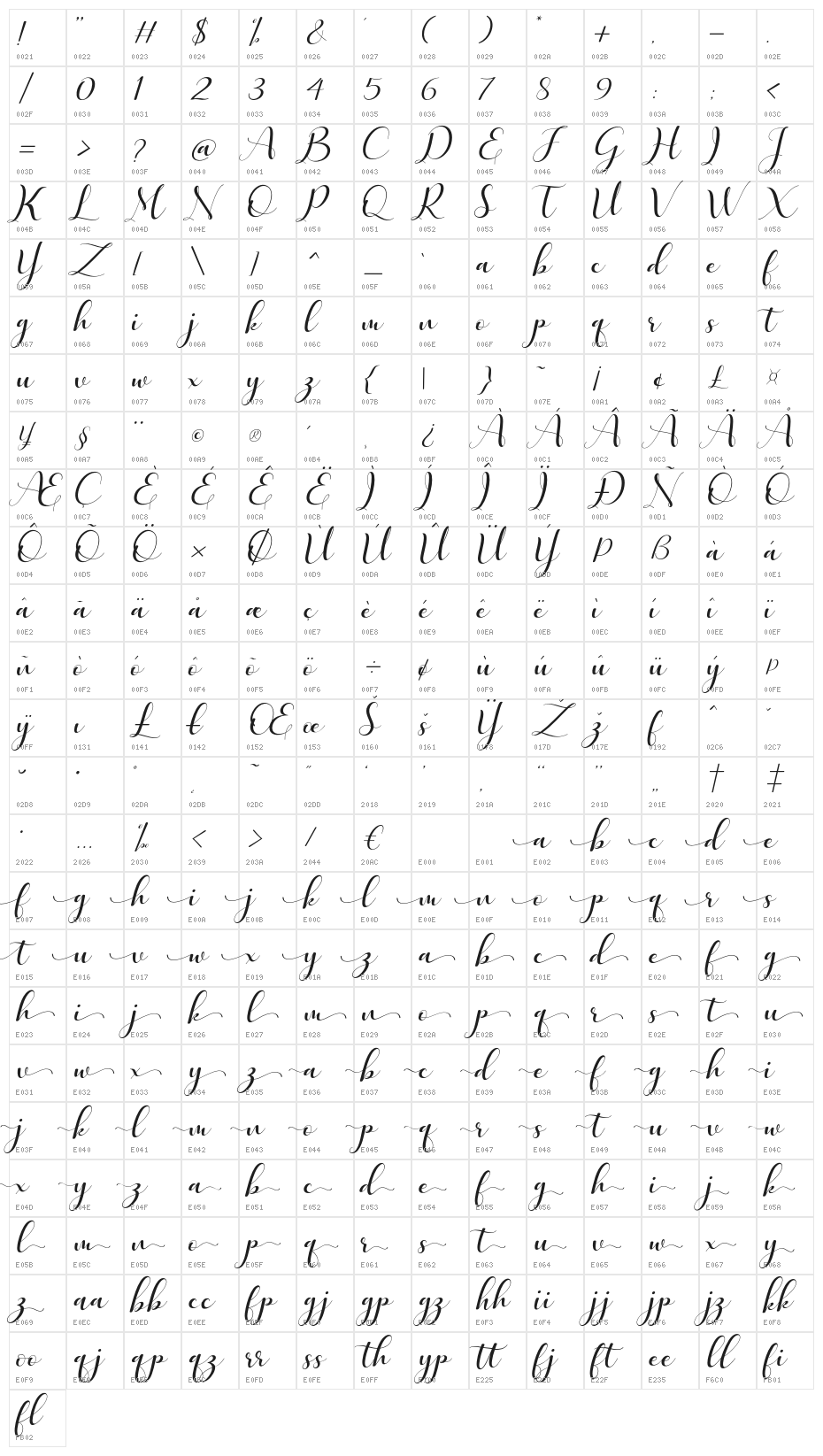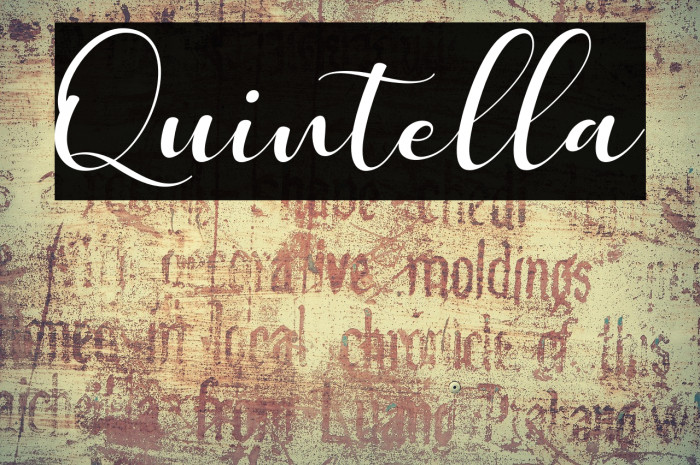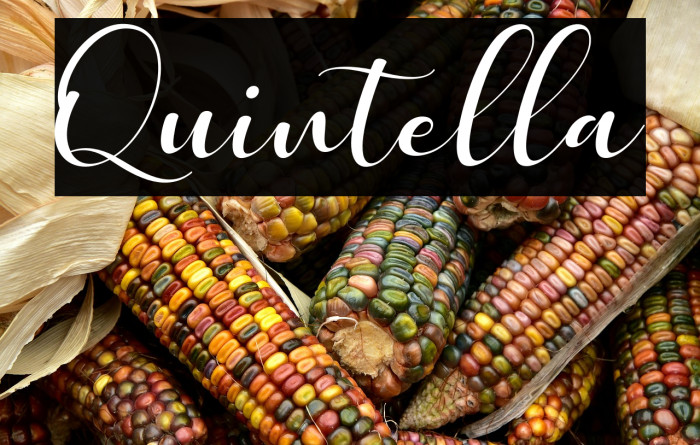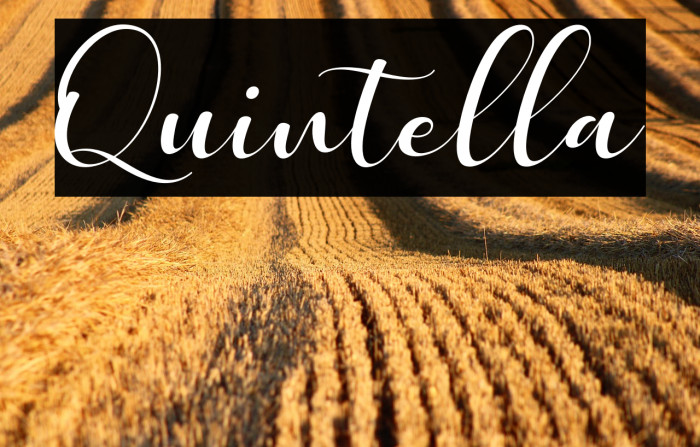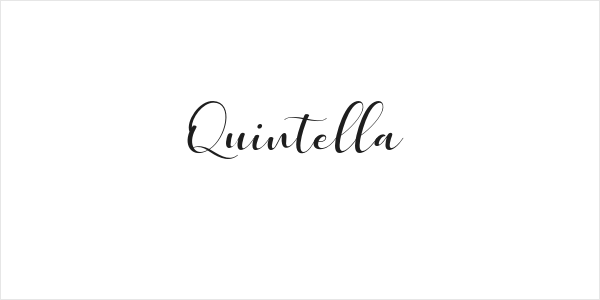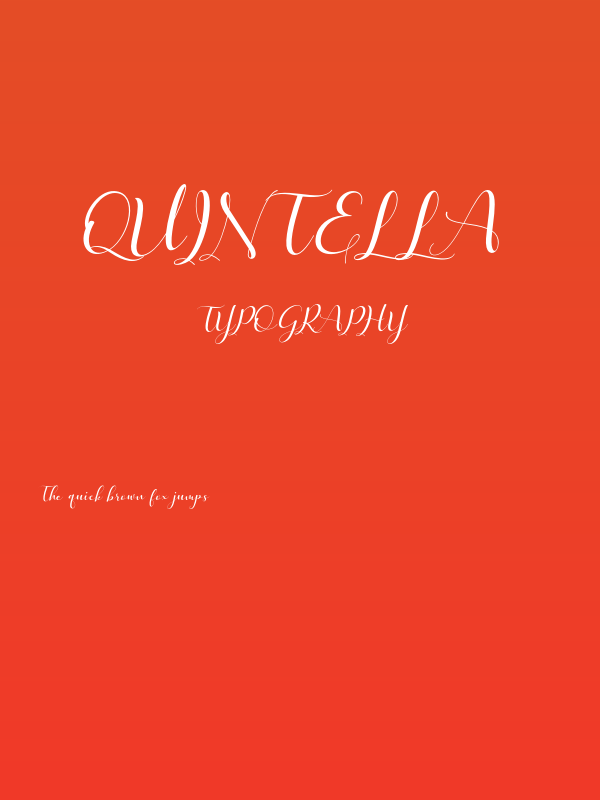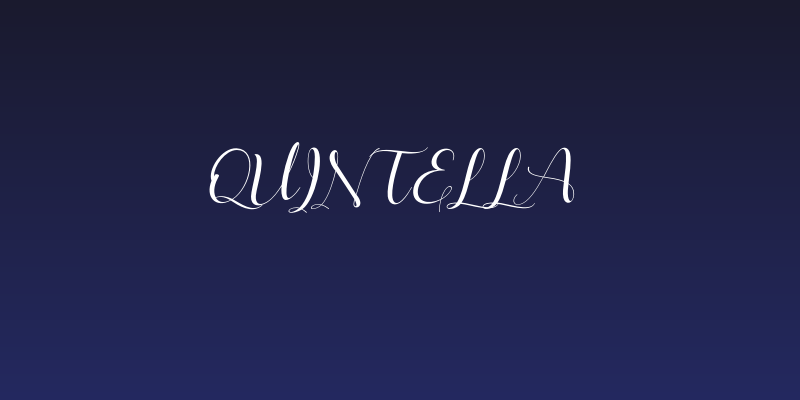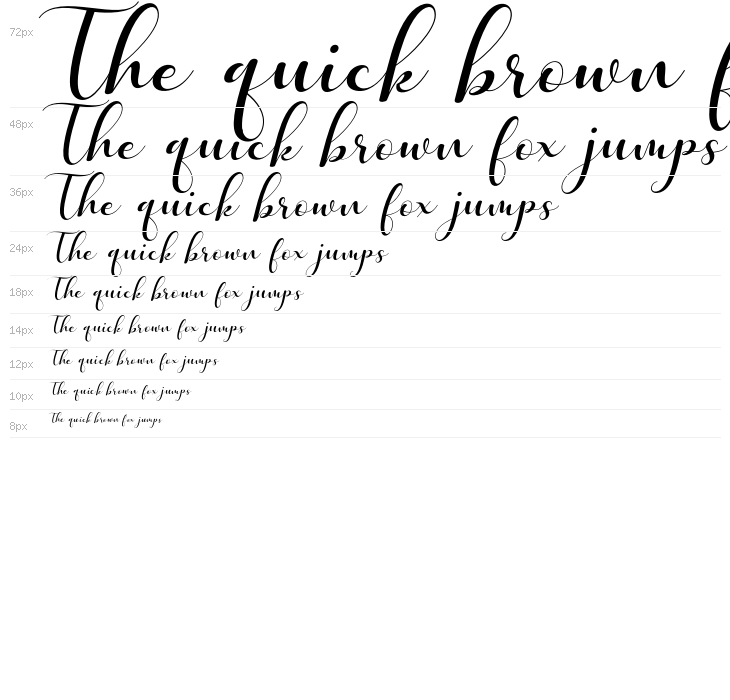
Quintella Font
Quintella Description
This elegant script font features a flowing, cursive style with intricate loops and flourishes. The uppercase letters are particularly ornate, with sweeping lines that extend beyond the main body of the characters, creating a sense of movement and grace. The lowercase letters maintain a consistent flow, complementing the uppercase with their own subtle curves. The numerals are stylish yet readable, and the special characters carry the same decorative flair. This font exudes sophistication and is perfect for projects that require a touch of elegance.
| Overall Style | Elegant |
| Use Case | Logos, Invitations, Headlines |
| Proposed Projects | Ideal for wedding invitations, luxury branding, elegant stationery, and high-end product packaging. |